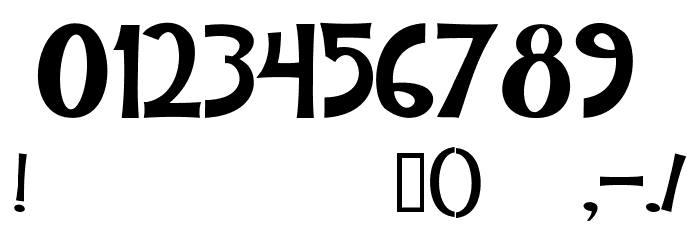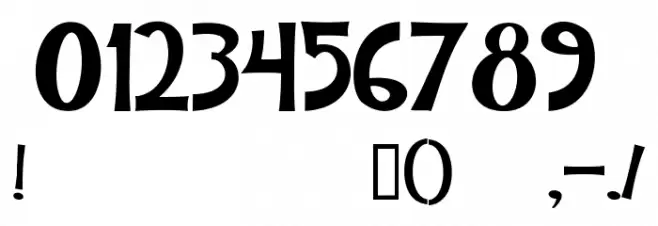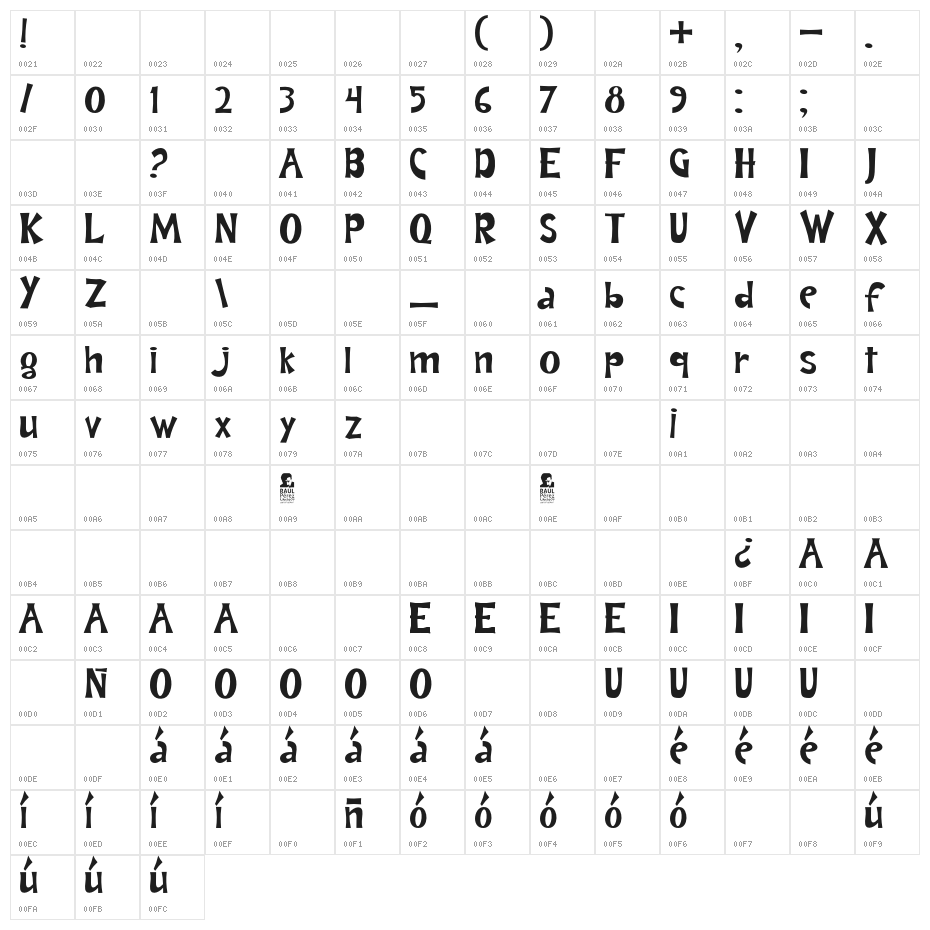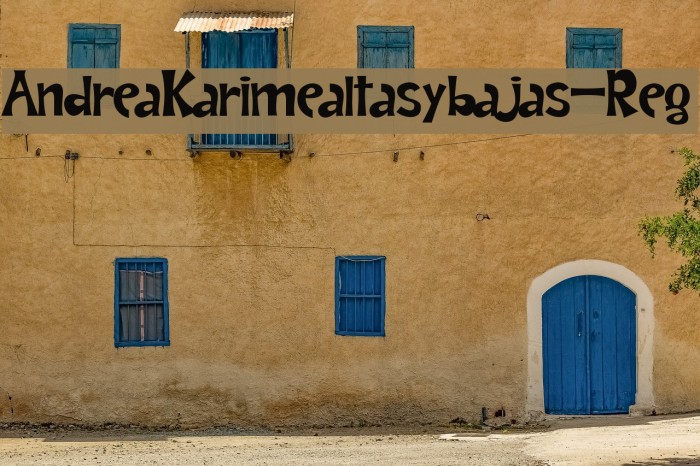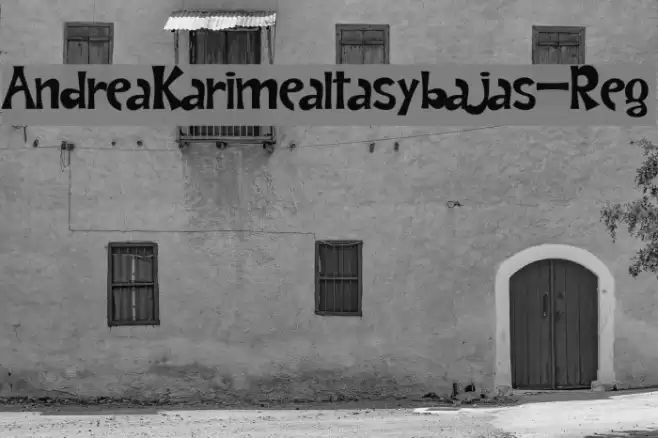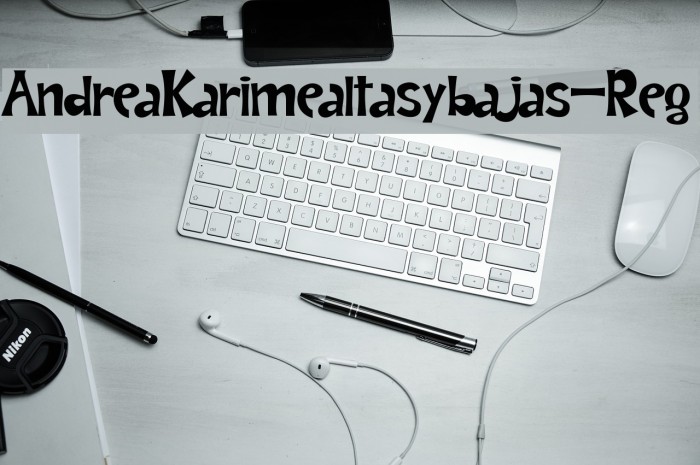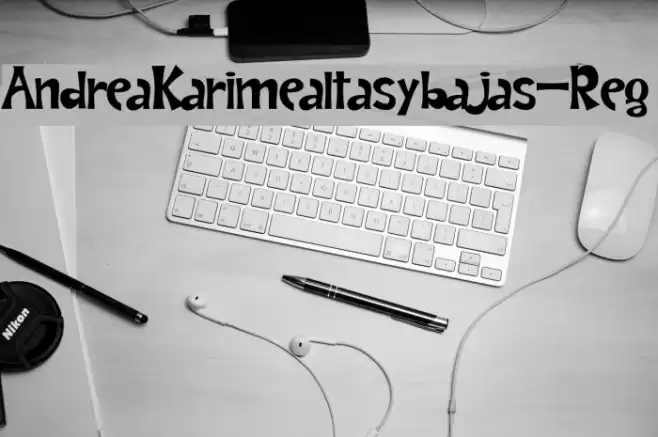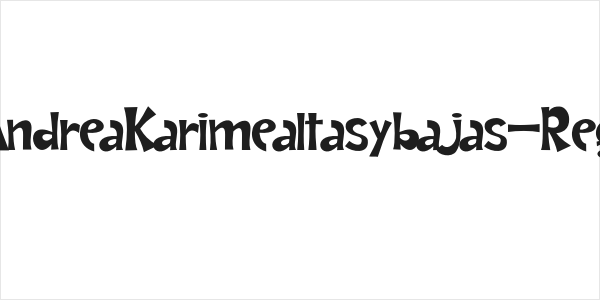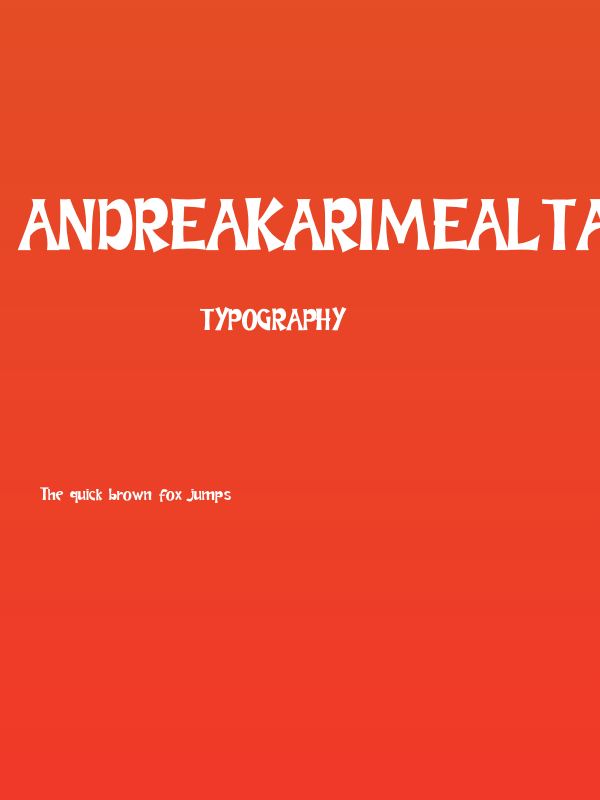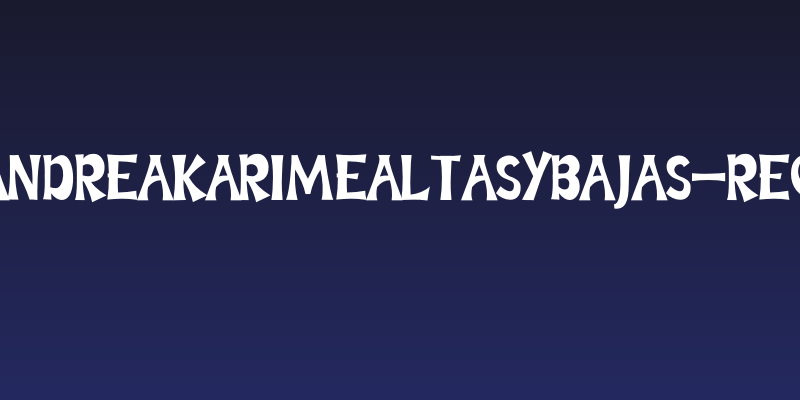
AndreaKarimealtasybajas-Reg Font
AndreaKarimealtasybajas-Reg Description
This font features a playful and dynamic style with exaggerated curves and varying stroke widths. The uppercase letters exhibit a bold presence with unique, angular serifs that give them a whimsical yet structured appearance. The lowercase letters maintain a consistent style, with rounded forms and a slightly condensed look. Numbers are bold and distinct, matching the overall playful theme. Special characters are creatively designed, adding to the font's unique personality. This font is well-suited for projects that require a fun and engaging aesthetic.